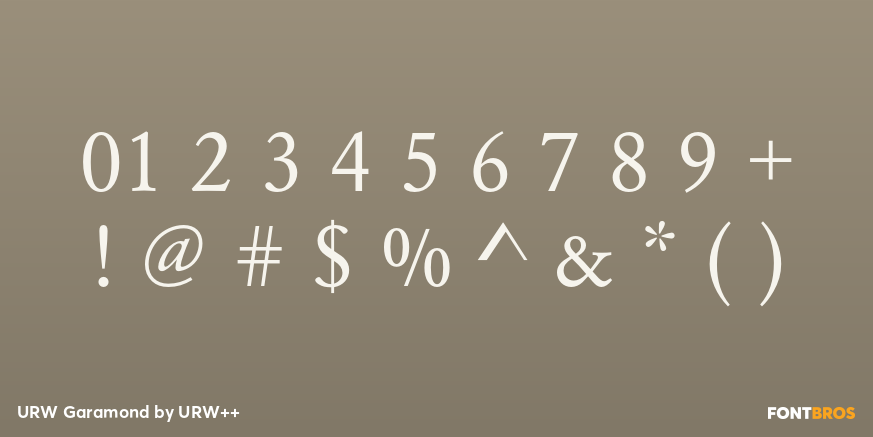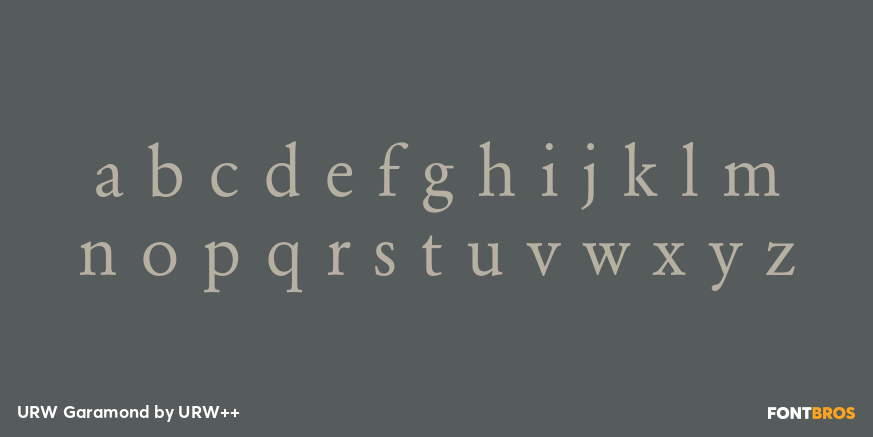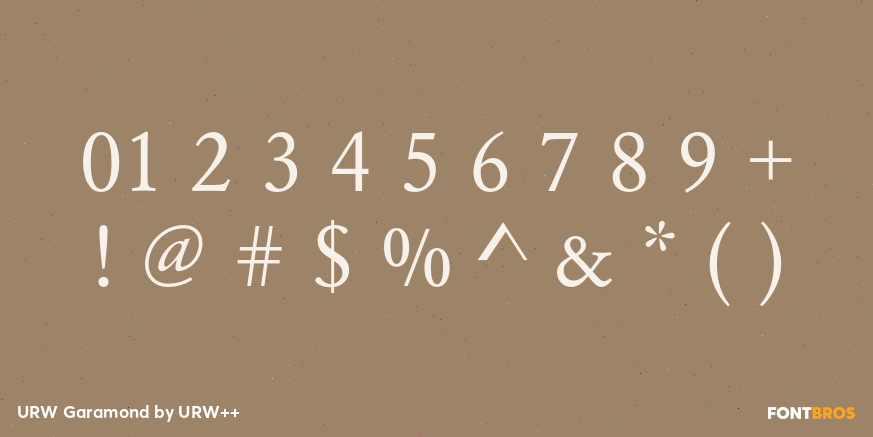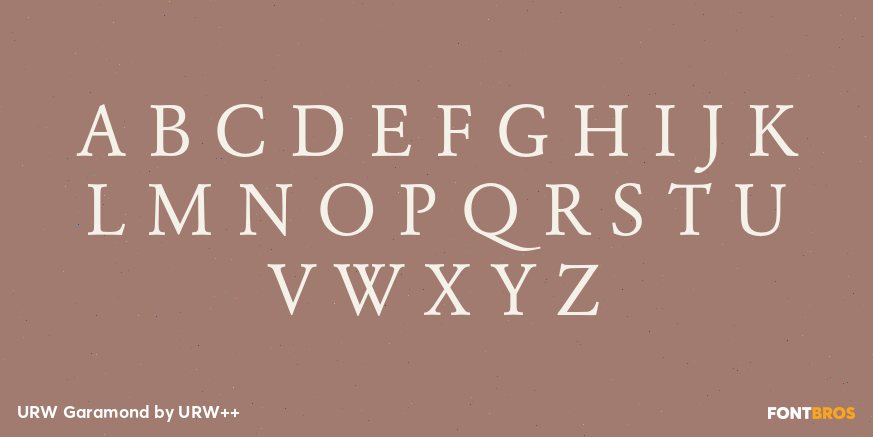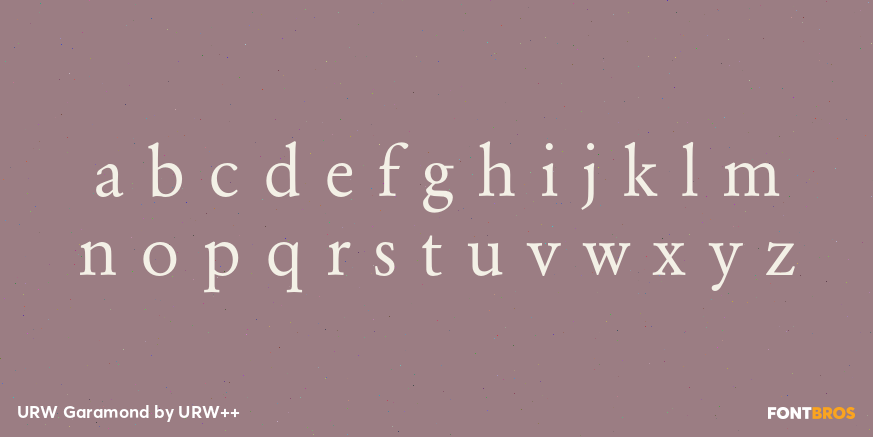
URW Garamond
Font Family by URW++
URW Garamond is a serif family with a classic, literary feel and a notably broad range of proportions. Its familiar Garamond character brings warmth, refinement, and readability, while the expanded set of widths—from extra narrow and condensed to wide and extra wide—gives designers much more room to shape tone and fit.
With 57 styles from URW++, the family covers light, regular, medium, demi, bold, and extra bold weights, plus italic and oblique options in multiple widths. That versatility makes it a practical choice for editorial layouts, branding systems, packaging, book work, invitations, and display settings where you want a traditional serif voice with more flexibility than a standard text family.
Whether you need compact typography for tight spaces or a wider, more open look for headlines and identity work, this family offers a cohesive way to keep the same classic tone across a full design project.